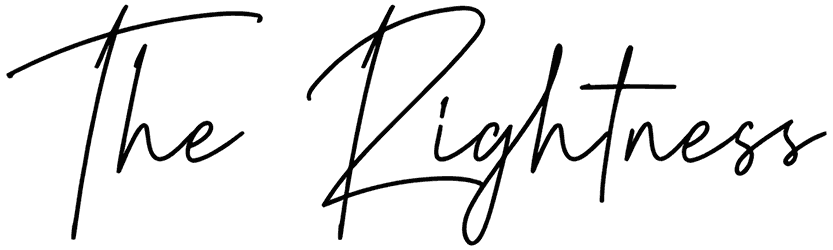
The Rightness Font
It is a true claim that the first time the audience sees your artwork that is designed with The Rightness, they will immediately fall in love with your posters, logos, brochures, packaging, or social media posts. Since it comes with a cursive style and sophisticated flow, it can share a sense of delicacy, drama, precision, or momentum with customers.